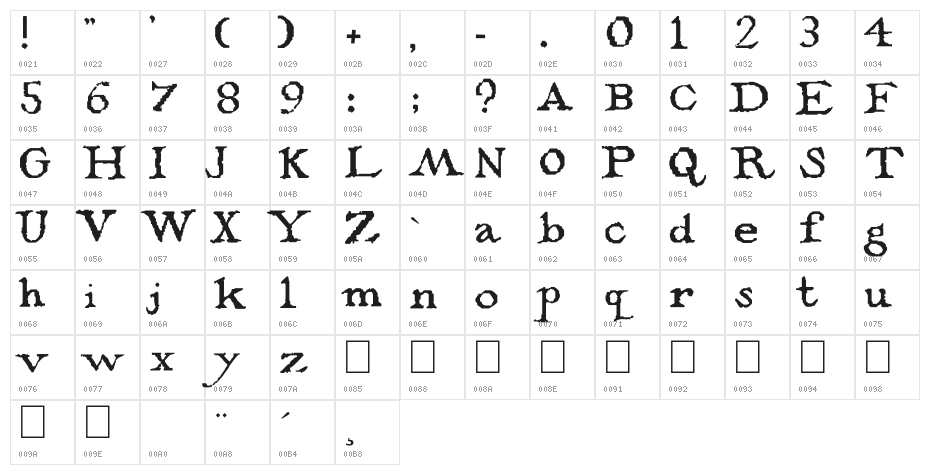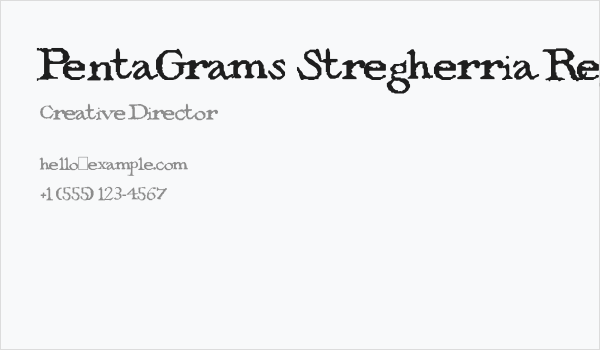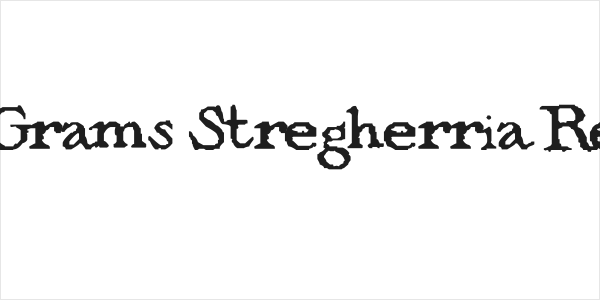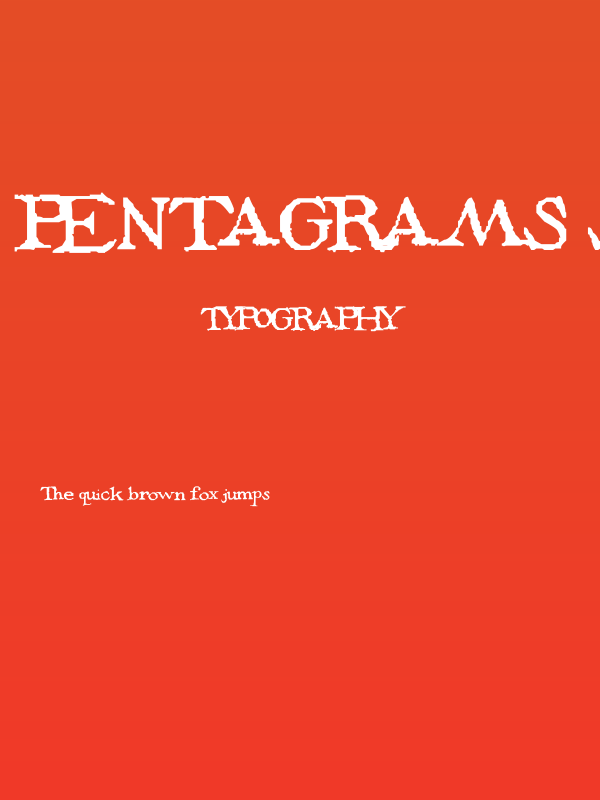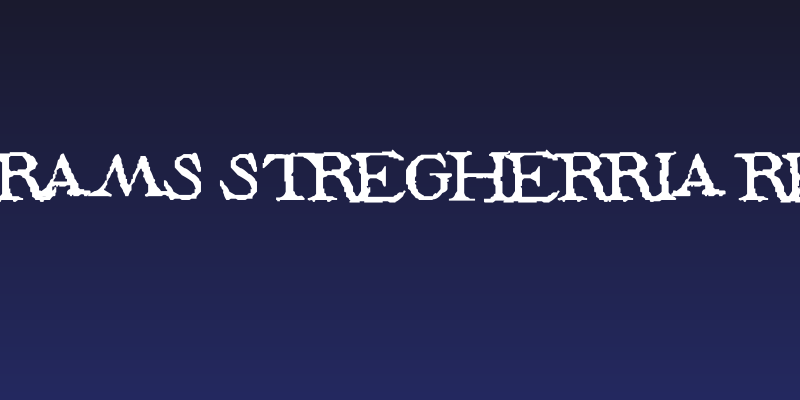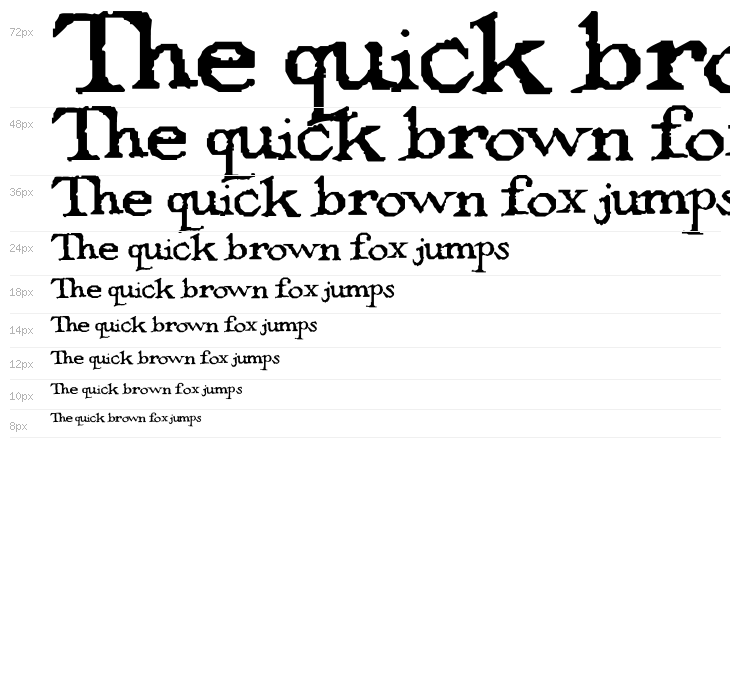
PentaGrams Stregherria Regular Font
PentaGrams Stregherria Regular Description
This font features a distinctive, rugged style with a hand-drawn appearance, characterized by irregular edges and a slightly distressed look. The uppercase letters are bold and commanding, while the lowercase letters maintain a consistent style that complements the uppercase. The numerals are clear and legible, matching the overall aesthetic. Special characters are included, adding versatility to the font. The unique design makes it suitable for projects that require a touch of personality and creativity.
| Proposed Projects | Ideal for creative projects such as posters, album covers, and branding that require a bold, artistic touch. |